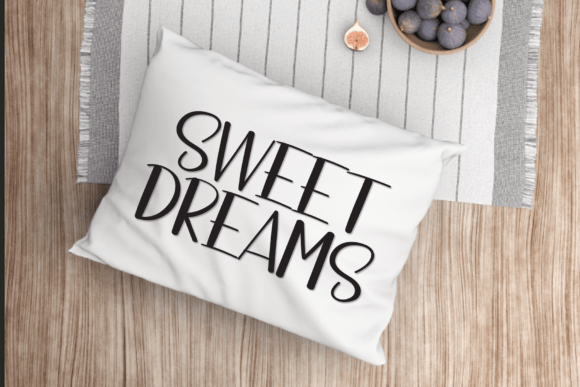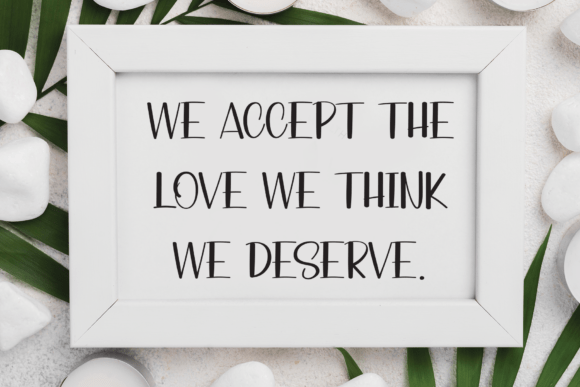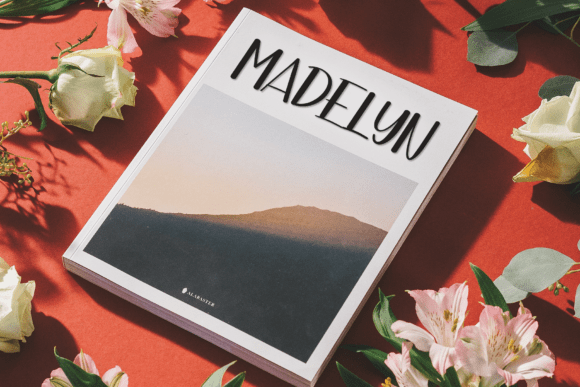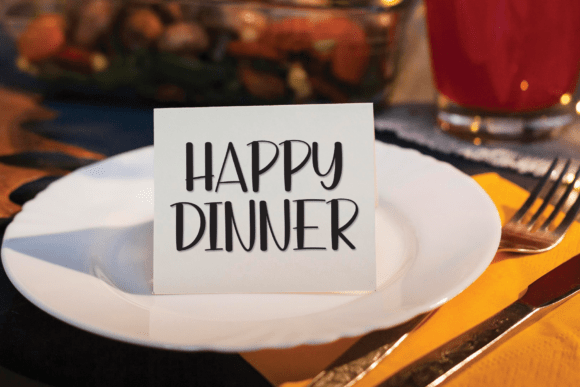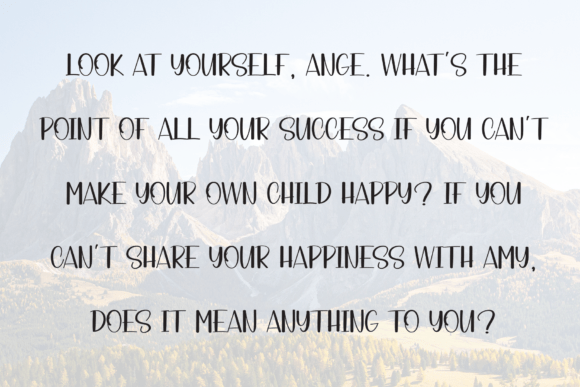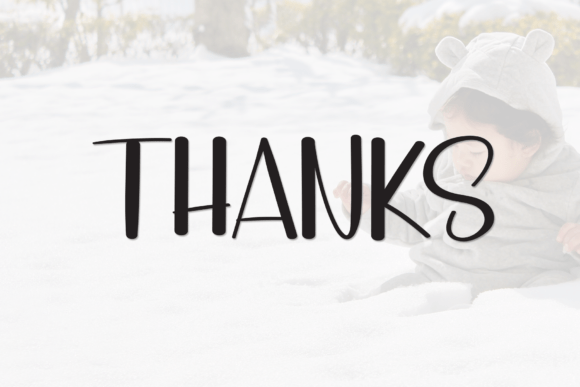
Baby Winter Font: A Delicate and Cozy Typeface for Winter Wonderland Projects
As the coldest season approaches, designers and crafters are on the lookout for typography that captures the essence of winter’s chill and magic. Introducing the Baby Winter font, a creative style font and typeface that embodies the cozy and delicate spirit of winter. This beautiful font is perfect for a variety of projects, from nursery wall art to winter-themed apparel, holiday birth announcements, and seasonal greeting cards.
The Characteristics of Baby Winter Font
The Baby Winter font features tall, slender letterforms with a slightly irregular, hand-drawn baseline that gives it a gentle and human touch. This unique characteristic makes it stand out from more traditional typefaces and adds a sense of warmth and personality to any project. The font’s delicate lines and subtle imperfections evoke a sense of innocence and vulnerability, making it an ideal choice for projects aimed at children or those who are young at heart.
Perfect for Winter Wonderland Projects
The Baby Winter typeface is a dream for nursery wall art, winter-themed apparel for infants, and holiday birth announcements. Its elegant and refined appearance makes it perfect for creating beautiful and eye-catching designs that are sure to delight. Whether you’re designing a custom onesie, a nursery wall decal, or a holiday card, the Baby Winter font is sure to add a touch of winter magic to your project.
Adding a Touch of Innocence and Winter Magic
Integrating the Baby Winter font into a children’s book title or a seasonal greeting card adds a sense of innocence and winter magic. The font’s delicate and whimsical nature makes it perfect for creating designs that are both fun and sophisticated. Imagine using the Baby Winter font to create a custom title for a children’s book about winter adventures, or to design a set of holiday greeting cards that are sure to delight your friends and family.
Pairing with Soft Pastel Tones and Snowy Textures
The Baby Winter typeface pairs exceptionally well with soft pastel tones and snowy textures, making it a favorite for boutique infant branding and winter-themed scrapbooking. The font’s delicate lines and subtle color palette make it perfect for creating designs that are both soft and soothing. Whether you’re designing a custom branding package for a baby clothing line or creating a winter-themed scrapbooking page, the Baby Winter font is sure to add a touch of elegance and sophistication.
Conveying a Sense of Calm and Artisanal Elegance
Using the Baby Winter font for your next holiday project is a great way to convey a sense of calm and artisanal elegance. The font’s unique and hand-drawn nature makes it perfect for creating designs that are both beautiful and distinctive. Whether you’re designing a custom holiday card, a winter-themed gift tag, or a set of snowflake decorations, the Baby Winter font is sure to add a touch of sophistication and refinement.
Tips for Using the Baby Winter Font
Here are a few tips for using the Baby Winter font in your next project:
- Pair the Baby Winter font with soft pastel tones and snowy textures to create a winter wonderland effect.
- Use the font for nursery wall art, winter-themed apparel, and holiday birth announcements.
- Integrate the Baby Winter font into children’s book titles or seasonal greeting cards to add a touch of innocence and winter magic.
- Experiment with different font sizes and colors to create a unique and eye-catching design.
The Baby Winter font is a beautiful and delicate typeface that is perfect for winter wonderland projects. Its unique and hand-drawn nature makes it perfect for creating designs that are both beautiful and distinctive. Whether you’re a designer, crafter, or DIY enthusiast, the Baby Winter font is sure to add a touch of elegance and sophistication to your next project. So why not give it a try and see how it can add a touch of winter magic to your designs?